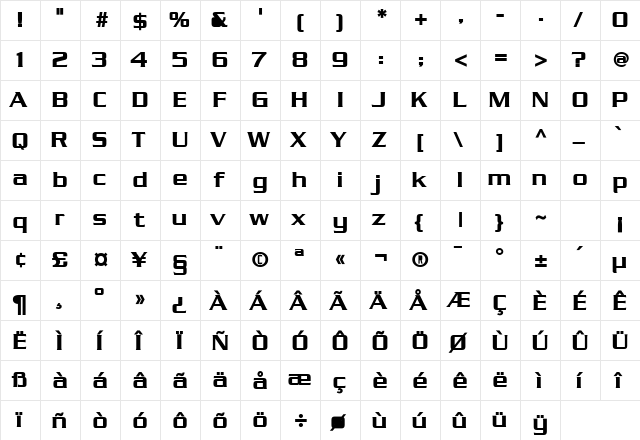
Chaney Bold
Design Context for Chaney Typeface
Chaney offers clean, dependable letterforms without strong stylistic allegiance, making it a practical choice for designers who need flexibility. The heavy weight commands attention and anchors typographic hierarchies.
Pro Tip: Use Chaney in both headline and body roles to test its range before committing to a single application.